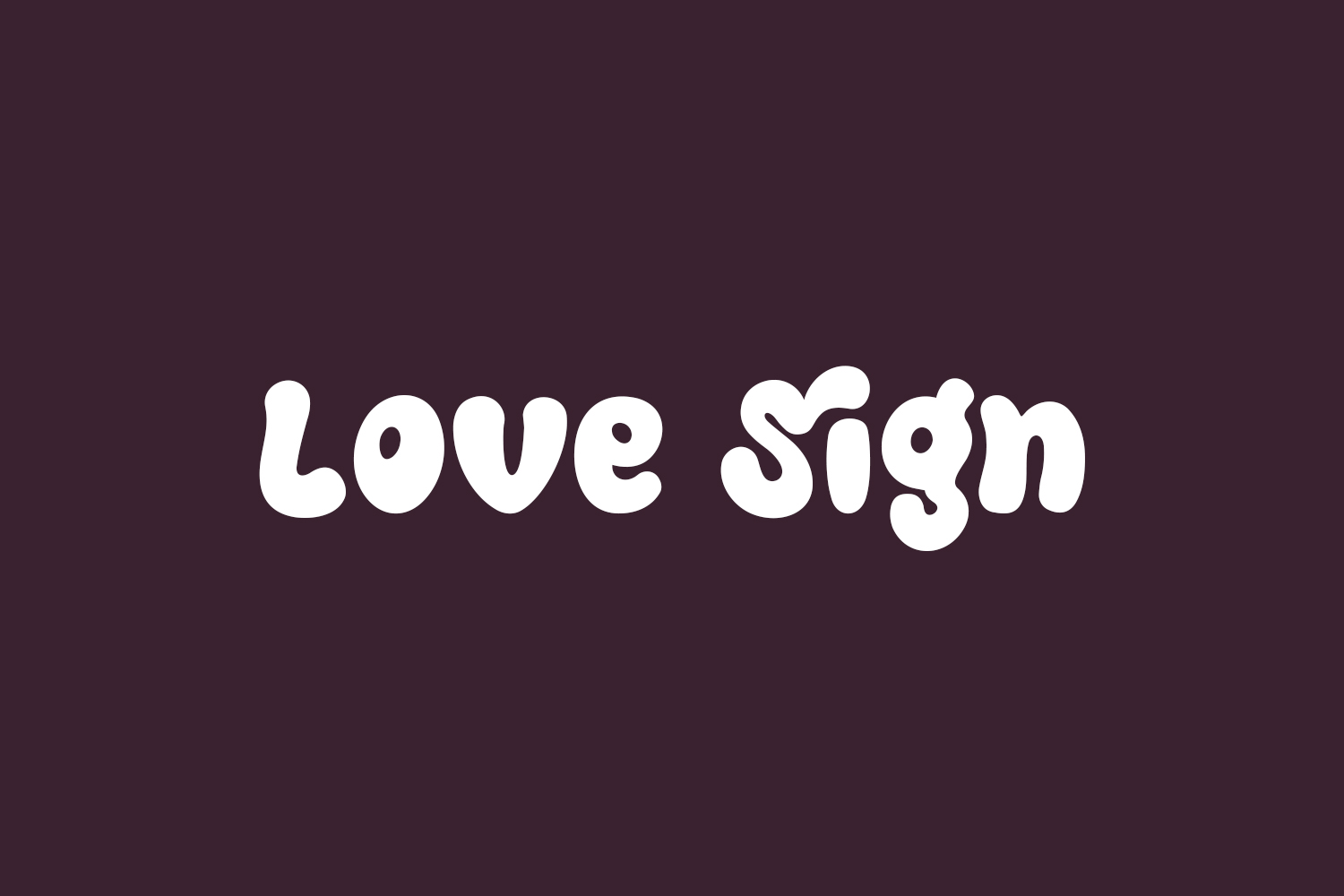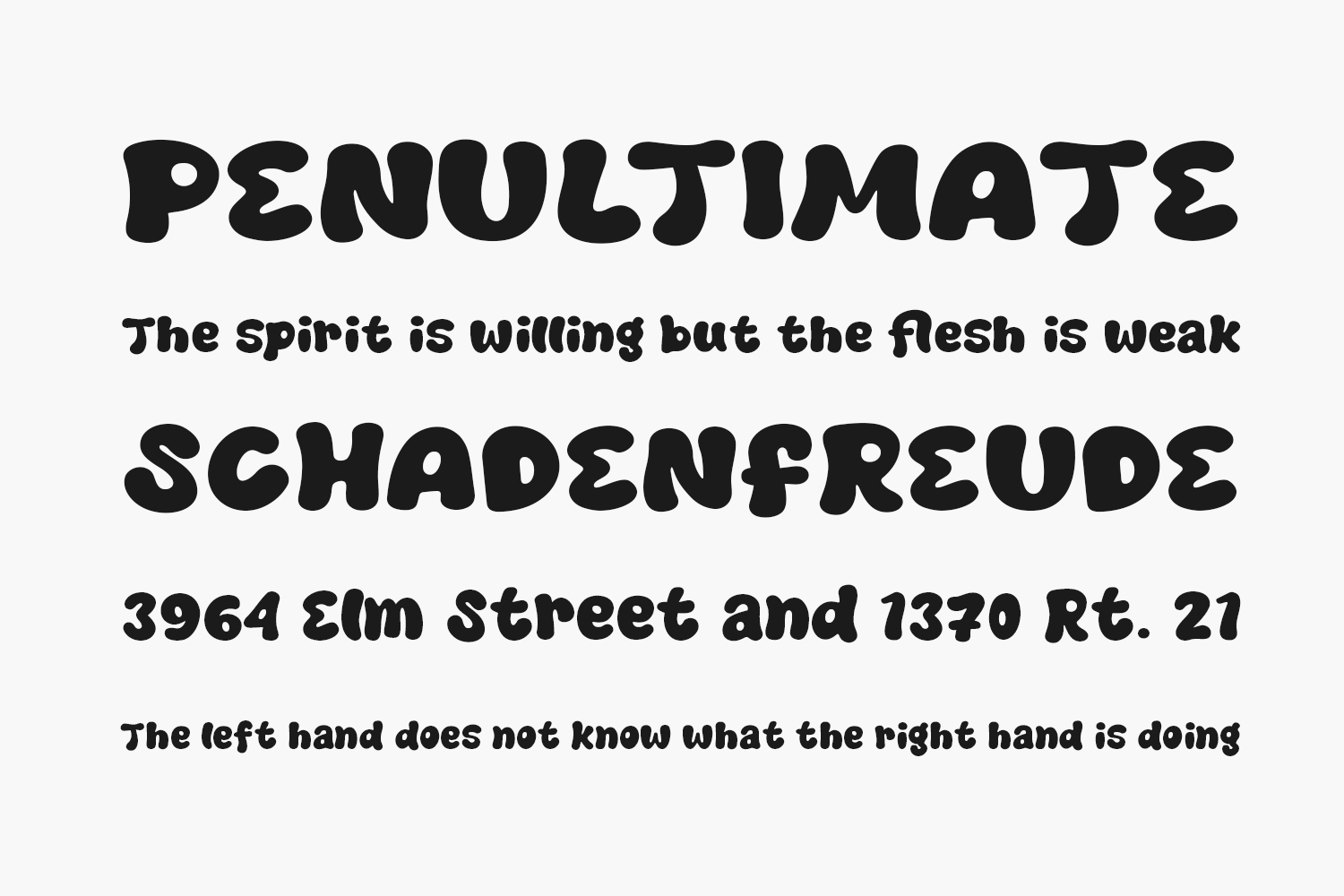
Love Sign Free Font is a charming and playful font that exudes a sense of love and affection. With its bold, expressive letterforms and cute illustrations, this font is perfect for any design project that requires a touch of romance and cuteness. Whether you’re creating a wedding invitation, a romantic greeting card, or branding for a cute shop, Love Sign adds a touch of love and cuteness to any design.
The font’s unique style is inspired by the cartoon style and love signs, which is characterized by bold, expressive letterforms, cute illustrations, and a playful aesthetic. This makes Love Sign ideal for creating designs such as wedding invitations, love cards, posters, and branding. Its versatility allows you to use it for various designs like headlines, social media posts, and more.